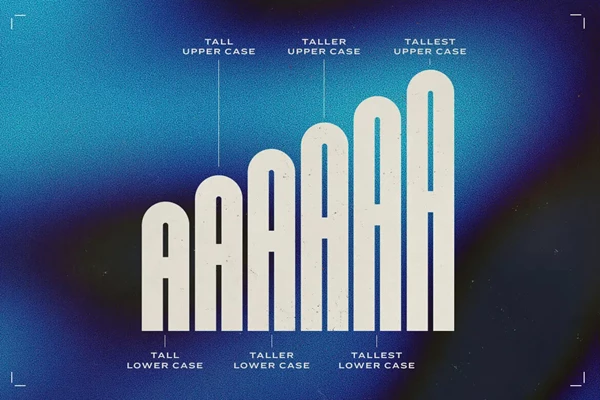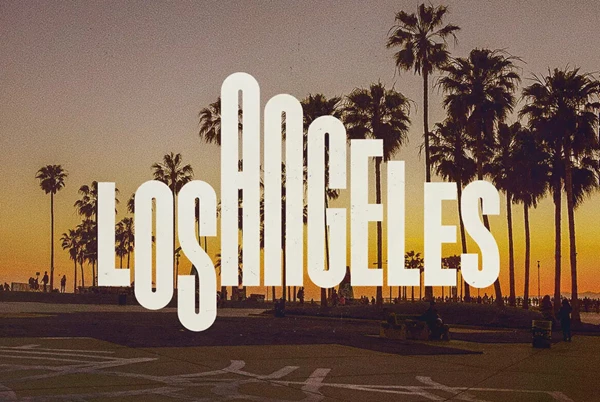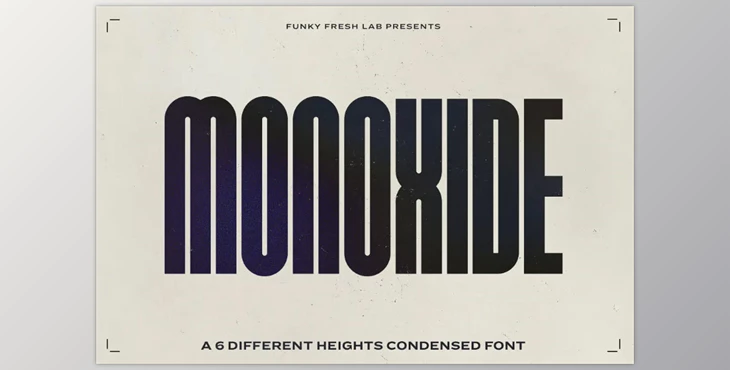
Expand your aesthetic horizons with the Monoxide Font Family, a new addition to YouWorkForThem. It's a striking all-caps, condensed typeface versatile enough for all your creative needs. With six distinct height variations, Monoxide adds a sharp, dynamic quality to projects while infusing them with vibrant rhythm. With posters and logos, this typeface claims attention and achieves an unapologetically bold look, thanks to its clean yet compact structure. Monoxide is best suited for designers looking to gain a modern, edgy aesthetic, but it is a font that can transform any toolkit for creators.
- All-caps condensed typeface for a bold statement.
- Varied heights optimally tailored to fit different designs with six unique variations.
- Ideal for posters, logos, and headlines
- Dynamic and bold design with clean, compact markers of clarity and impact
- The edgy look alongside the modern precision that the Monoxide font family ensures